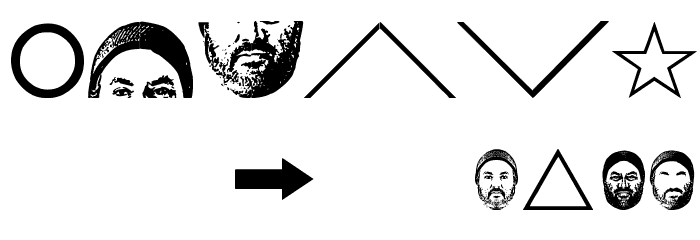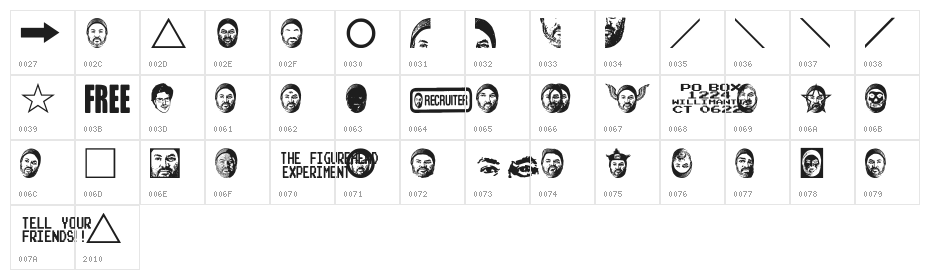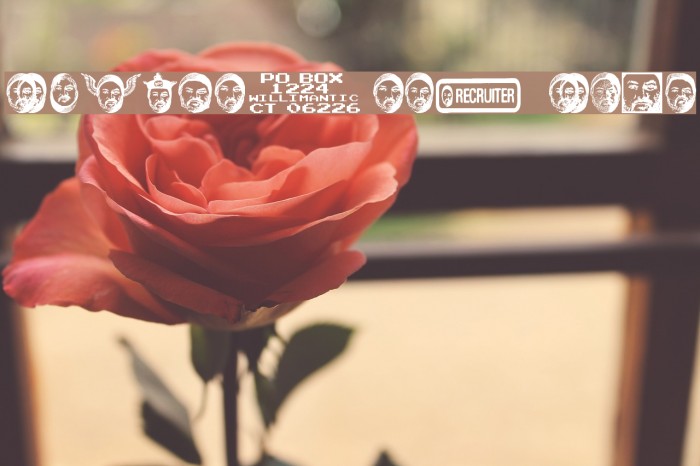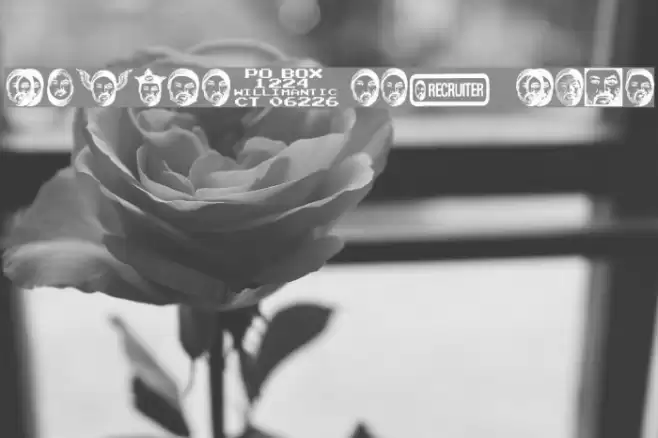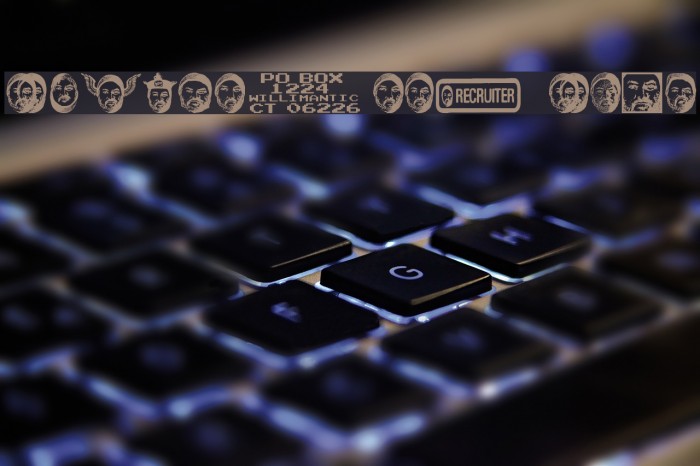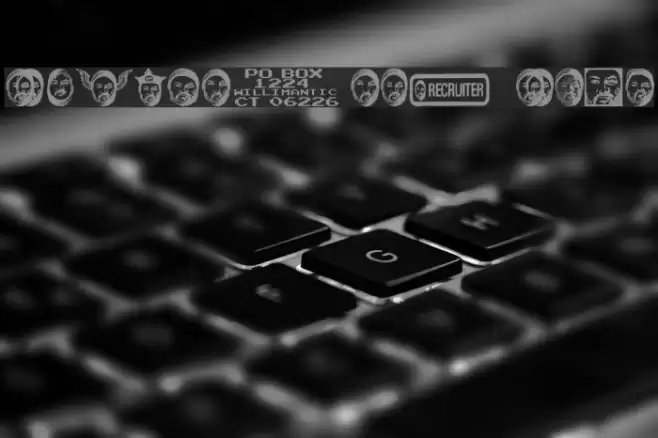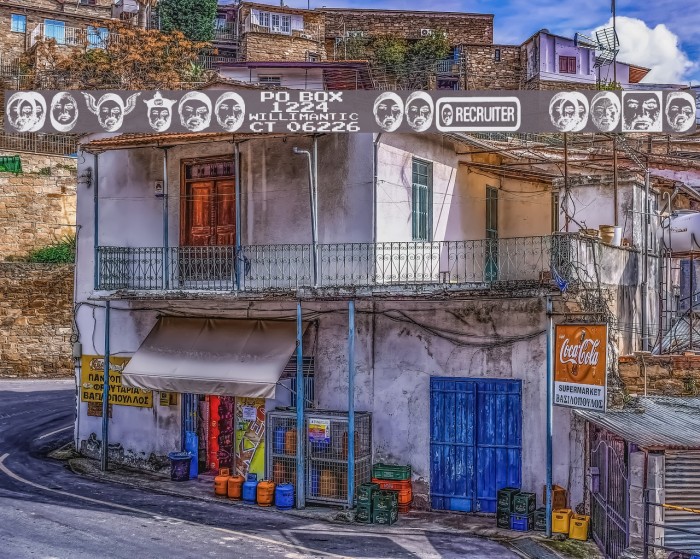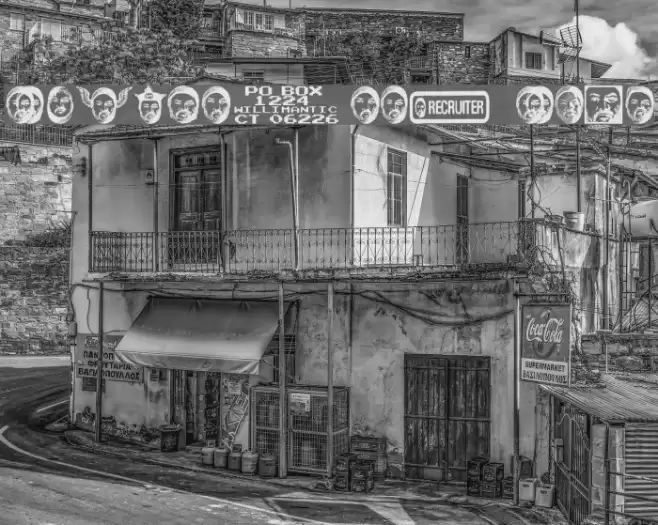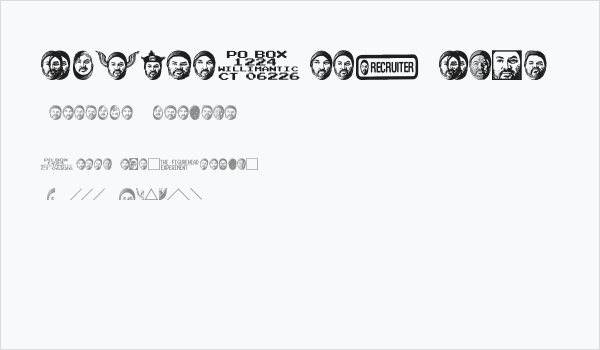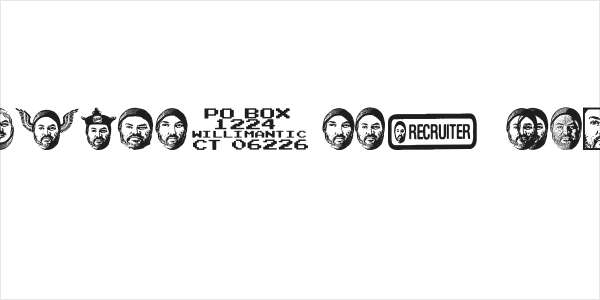
figurehead font Font
figurehead font Description
This is a decorative and highly stylized font that incorporates human faces and various symbols into its design. The characters are not traditional letters but rather a collection of unique illustrations that include faces, arrows, geometric shapes, and other graphic elements. The font is designed to be eye-catching and unconventional, making it suitable for creative projects that require a bold and artistic touch. The use of faces and symbols adds a playful and experimental vibe, making it ideal for projects that aim to stand out and make a statement.
| Use Case | Logos, Posters, Artistic Designs |
| Proposed Projects | Ideal for experimental art projects, posters, album covers, and any design work that seeks to be unique and visually striking. |